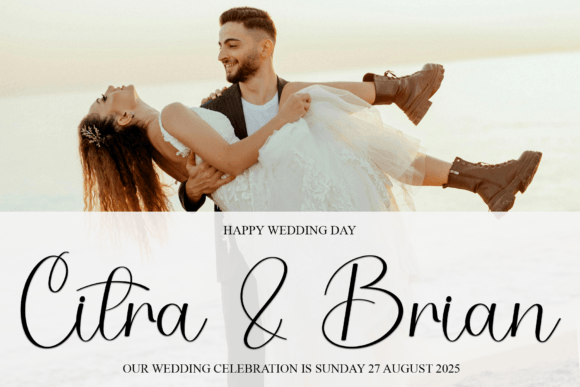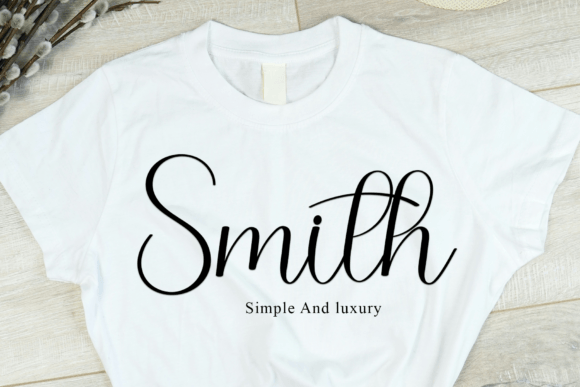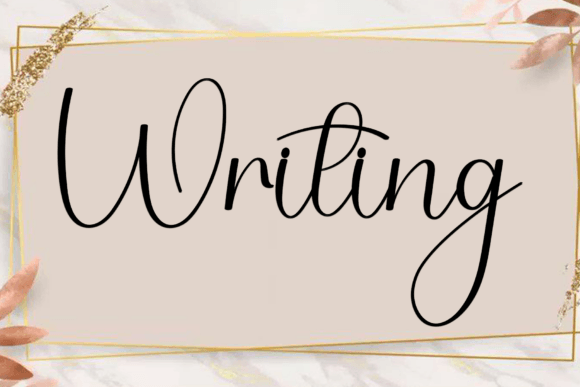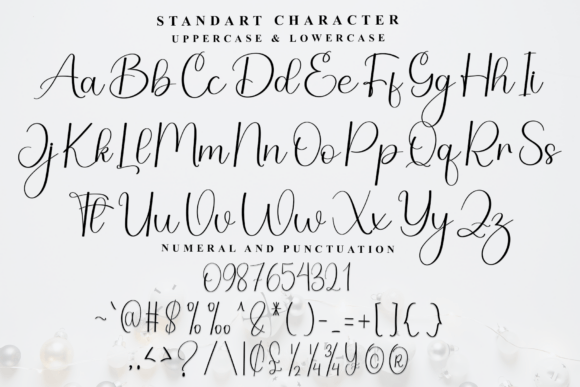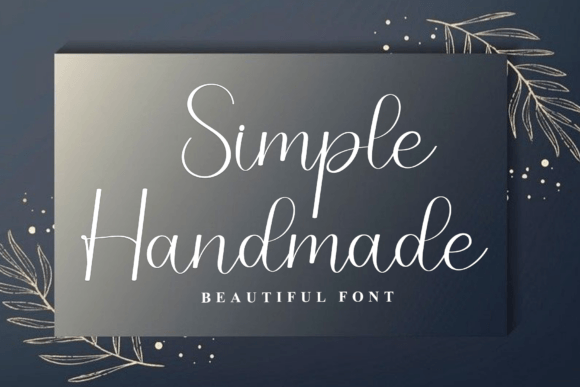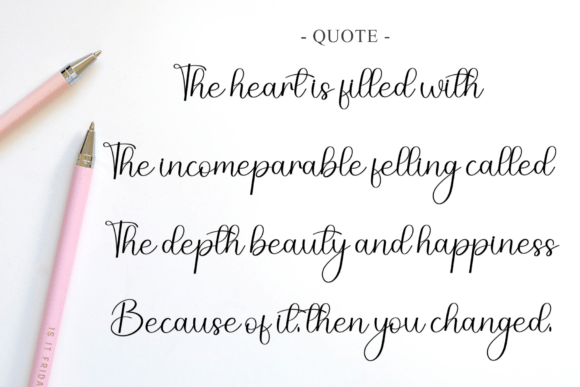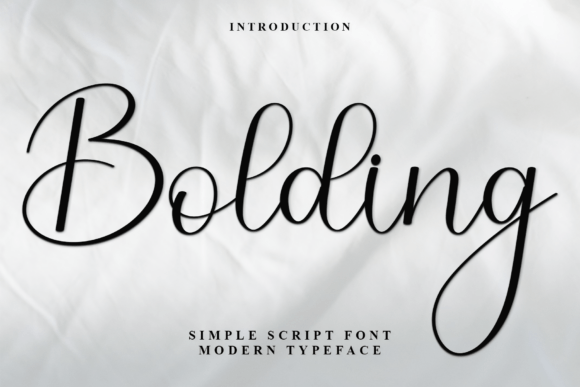
Bolding Font: Elevate Your Designs with Elegance and Sophistication
Bolding is a stylish and incredibly elegant script font that has taken the design world by storm. Its versatility and refined aesthetic make it an ideal choice for a wide range of design projects, from wedding invitations and thank you cards to quotes, greeting cards, logos, business cards, and more. In this article, we’ll explore the world of Bolding Font, its features, and how you can incorporate it into your designs to add a touch of sophistication and whimsy.
The Characteristics of Bolding Font
Bolding Font is a script font that boasts a unique blend of classic elegance and modern flair. Its flowing lines, intricate details, and refined aesthetic make it perfect for designs that require a personal touch. The font’s elegant strokes and beautiful ligatures give it a handwritten feel that’s both sophisticated and eye-catching.
Why Choose Bolding Font?
So, why should you choose Bolding Font for your next design project? Here are just a few reasons why this font stands out from the rest:
- Elegance and Sophistication: Bolding Font exudes elegance and sophistication, making it perfect for designs that require a touch of luxury and refinement.
- Versatility: This font is incredibly versatile and can be used for a wide range of design projects, from wedding invitations and greeting cards to logos and business cards.
- Handwritten Touch: Bolding Font has a beautiful handwritten feel that’s perfect for designs that require a personal touch.
- Easy to Read: Despite its elegant and cursive nature, Bolding Font is surprisingly easy to read, making it perfect for designs that require a clear and legible font.
Using Bolding Font in Your Designs
So, how can you incorporate Bolding Font into your designs? Here are a few ideas to get you started:
- Wedding Invitations: Bolding Font is perfect for wedding invitations, adding a touch of elegance and sophistication to your special day.
- Greeting Cards: Use Bolding Font to create beautiful and personalized greeting cards for special occasions, such as birthdays, anniversaries, and holidays.
- Logos and Branding: Bolding Font can be used to create stunning logos and branding materials that exude elegance and sophistication.
- Business Cards: Add a touch of refinement to your business cards with Bolding Font, making you stand out in a crowded industry.
- Quotes and Typography: Use Bolding Font to create beautiful typography and quote designs that are perfect for social media, blogs, and websites.
Tips and Tricks for Working with Bolding Font
Here are a few tips and tricks to help you get the most out of Bolding Font:
- Pair with Simple Fonts: Pair Bolding Font with simple and clean fonts to create a beautiful contrast and make your design stand out.
- Experiment with Colors: Bolding Font looks stunning in a range of colors, so don’t be afraid to experiment and find the perfect hue for your design.
- Use Ligatures: Bolding Font features beautiful ligatures that can add an extra touch of elegance to your design.
- Pay Attention to Spacing: Make sure to pay attention to spacing and kerning when working with Bolding Font to ensure that your design looks polished and refined.
Bolding Font is a stylish and elegant script font that’s perfect for designers and crafters looking to add a touch of sophistication and whimsy to their designs. With its versatility, refined aesthetic, and handwritten feel, Bolding Font is an ideal choice for a wide range of design projects. Whether you’re creating wedding invitations, greeting cards, logos, or business cards, Bolding Font is sure to elevate your designs and make them stand out from the crowd.